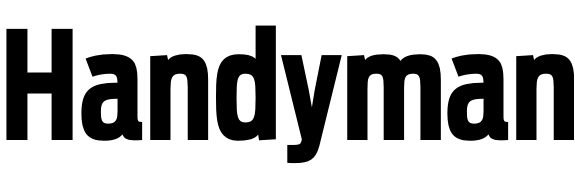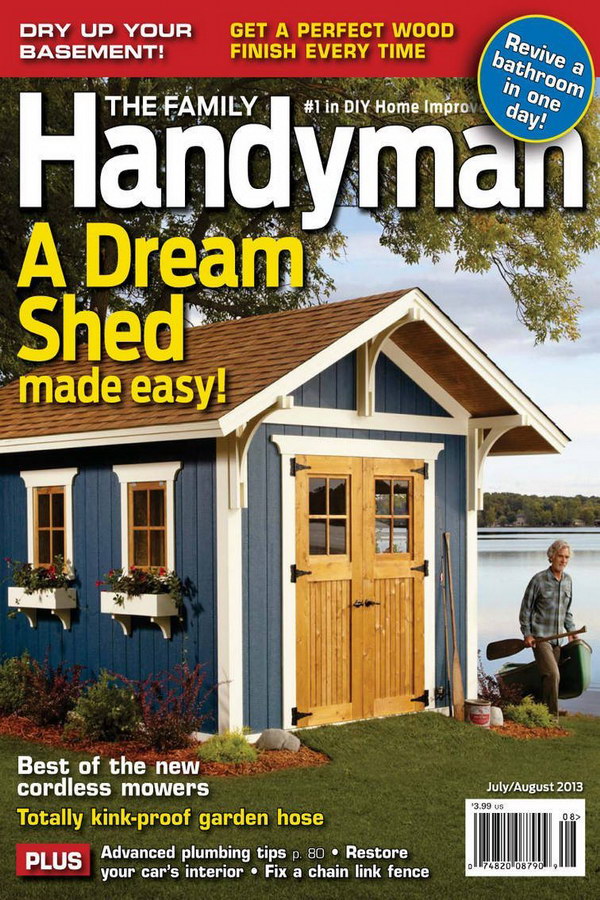
The Family Handyman Font
BookThe Family Handyman is a home improvement and DIY magazine that provides practical advice, tips, and instructions for various household projects and repairs. This magazine was first published in 1951 and is now owned by Reader's Digest Association.
It's likely that the magazine's nameplate was crafted using Antenna Extra Cond Bold. Antenna is a font family created by Cyrus Highsmith and published by Font Bureau in 2007. Additional information on Antenna can be found here.